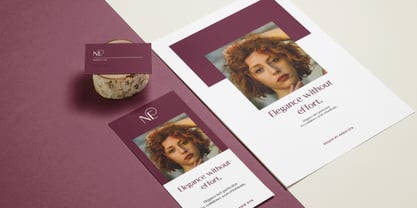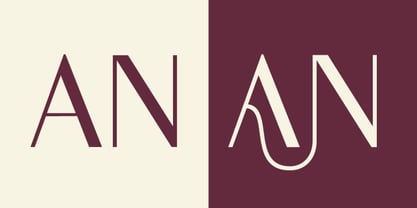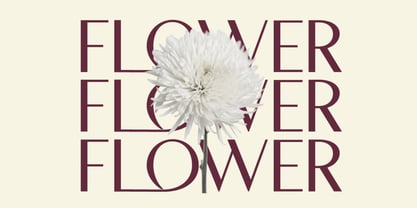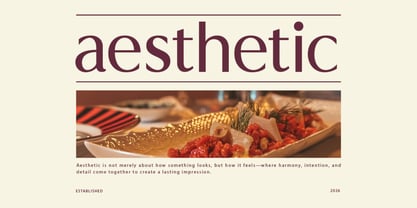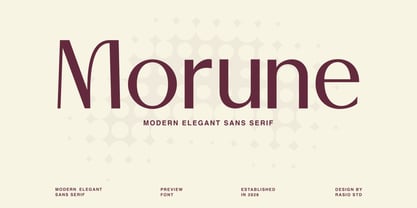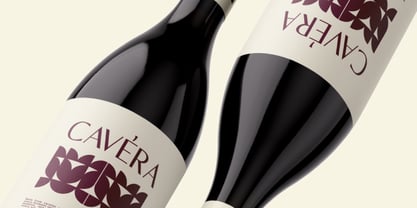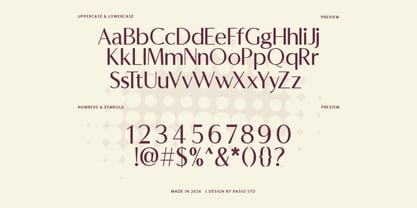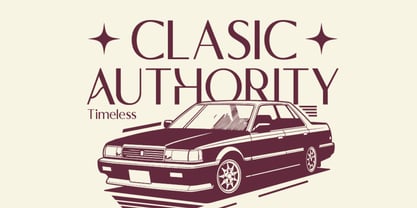
Morune
por Rasio Studio
La familia tipográfica Morune fue diseñada por Fajar Indra y publicada por Rasio Studio. Morune contiene 1 estilos. Más información sobre esta familia
Morune is a refined modern sans serif typeface that brings together minimalism and elegance in perfect balance. Designed with subtle high-contrast strokes and distinctive letterform variations, Morune creates a sophisticated visual rhythm suitable for branding, editorial, and upscale design. Morune is highly relevant for designers looking to elevate their branding or editorial projects with a font that feels premium yet modern. Whether for high-end fashion, hospitality menus, personal branding, or design portfolios,
Diseñadores: Fajar Indra
Fundición: Rasio Studio